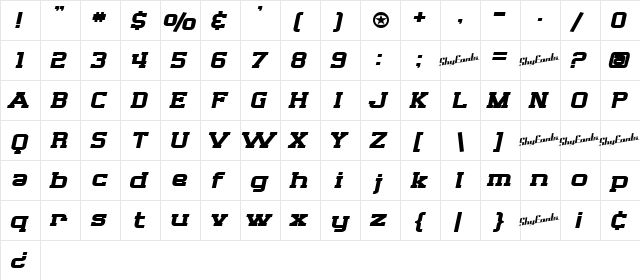
SF Big Whiskey Extended Bold
Design Context for SF Big Whiskey Extended Typeface
SF Big Whiskey Extended is a composed and adaptable typeface that performs quietly and consistently across a wide range of design contexts. The heavy weight commands attention and anchors typographic hierarchies.